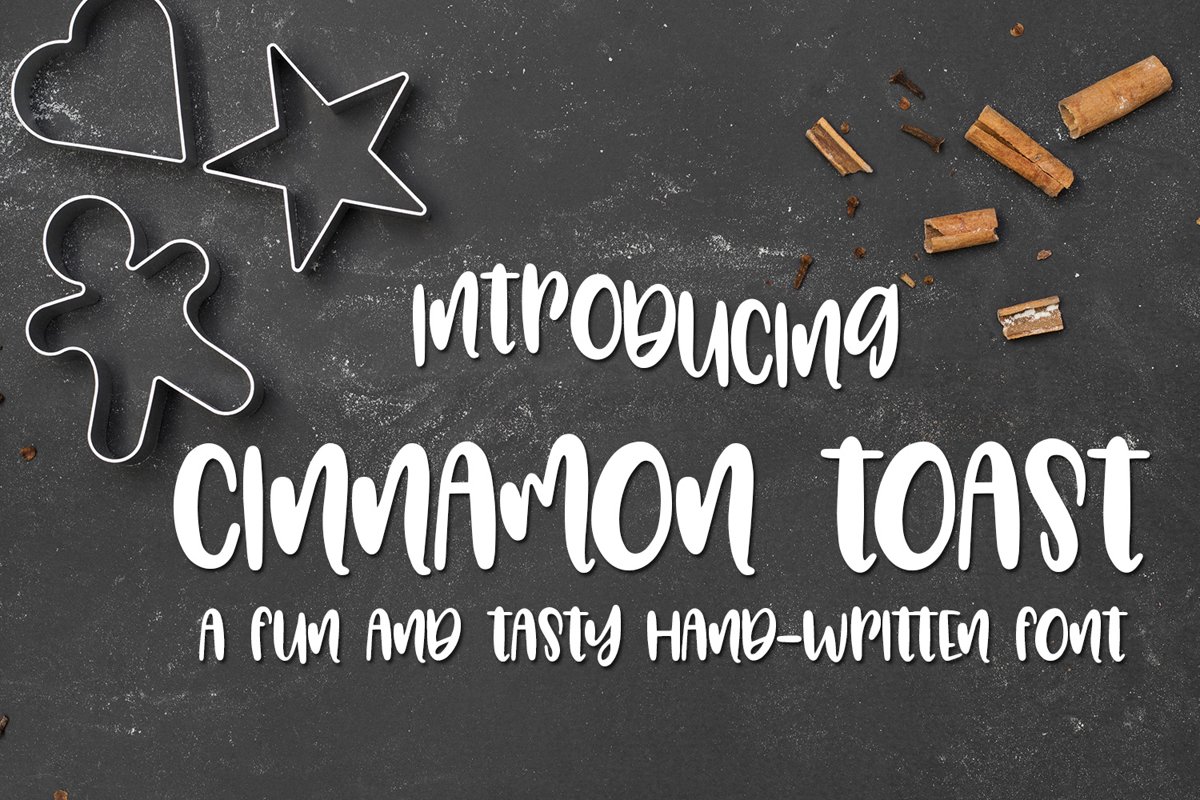
Cinnamon Toast - A Tasty Hand-Written Font
Introducing Cinnamon Toast - a fun hand-written font. Perfect for shirts, mugs, wall art and so much more.